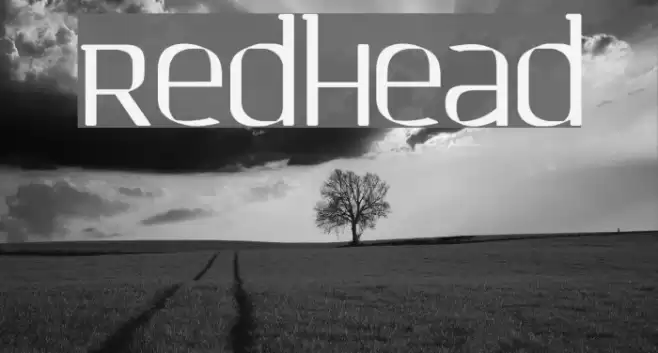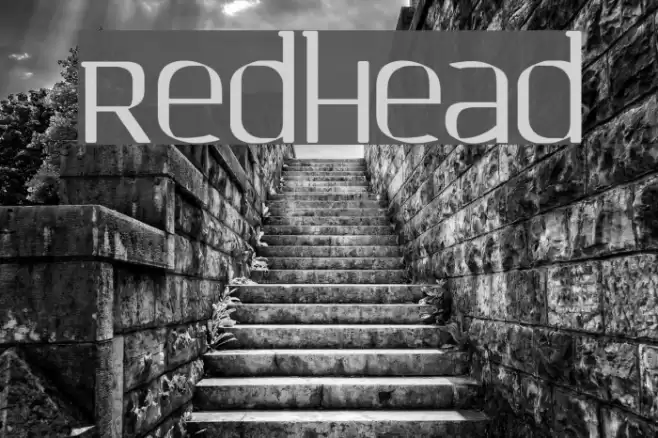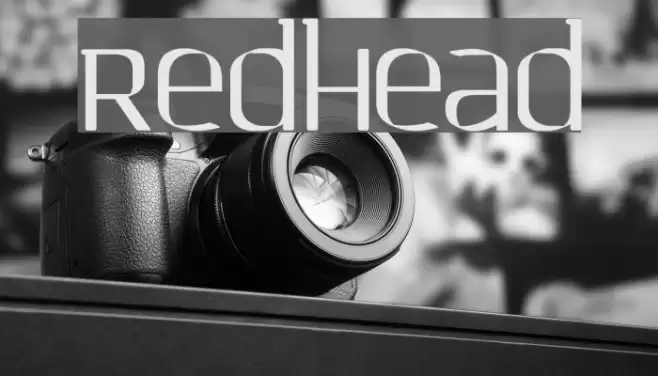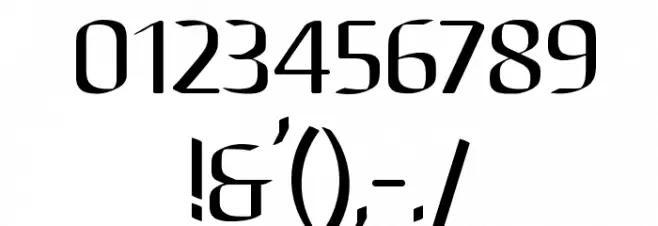
Redhead Font
Redhead Description
This font features a modern and sleek design with a geometric structure. The characters are slightly condensed, giving it a compact appearance. The uppercase letters are bold and assertive, while the lowercase letters maintain a consistent flow with rounded edges. The numerals are clear and well-defined, making them easily readable. Special characters are designed to match the overall aesthetic, providing a cohesive look. The font's style is versatile, suitable for both digital and print media, offering a contemporary feel that can enhance various design projects.
A modern, geometric font with a sleek and slightly condensed design from Uncategorized fonts.
- Proposed Projects: Ideal for branding, advertising, web design, and editorial layouts.
- Use Case: Headlines, Logos, Digital media